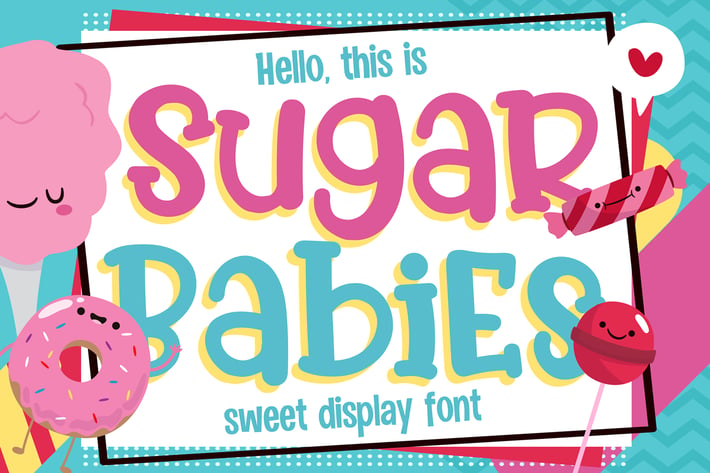
Sugar Babies - Sweet Display Font
Say hello to Sugar Babies font.
Made with love and joy, Kids look, so it will make your design more beautiful, cute, fun, and colorful.